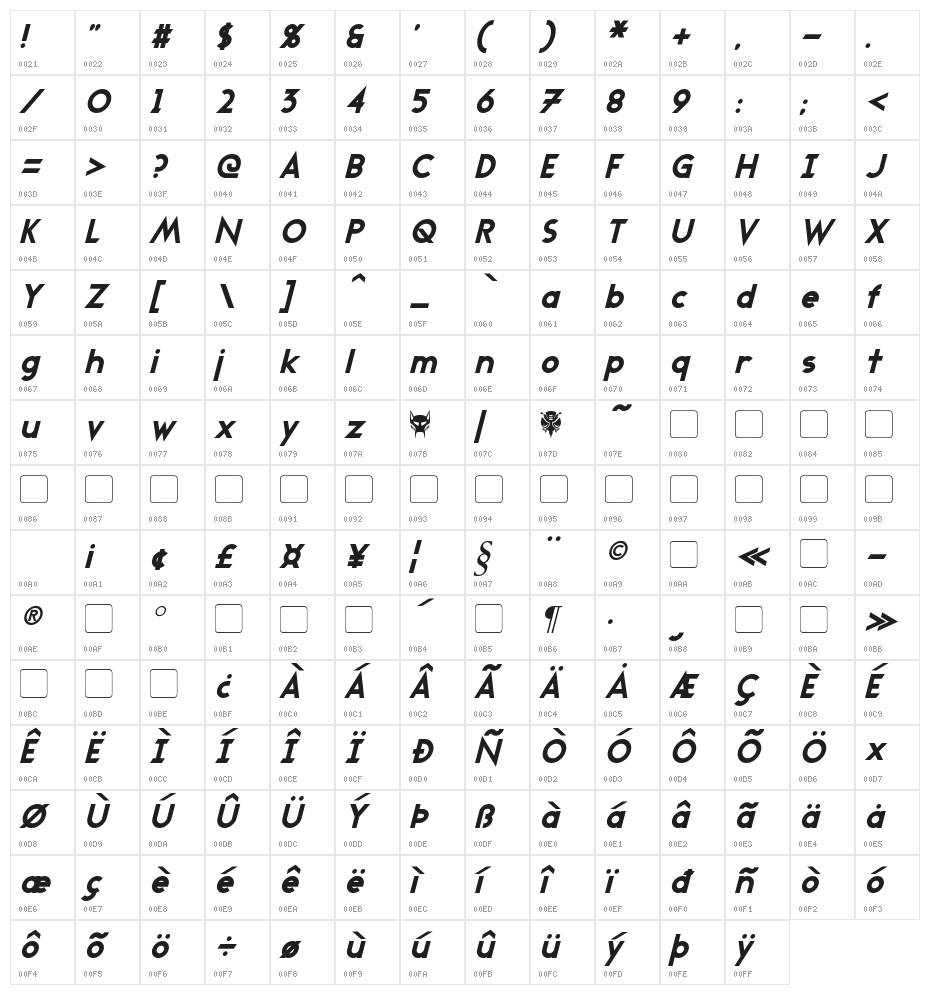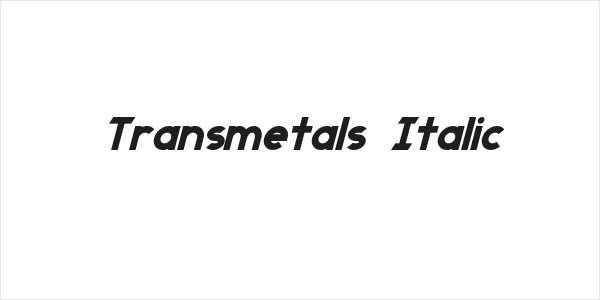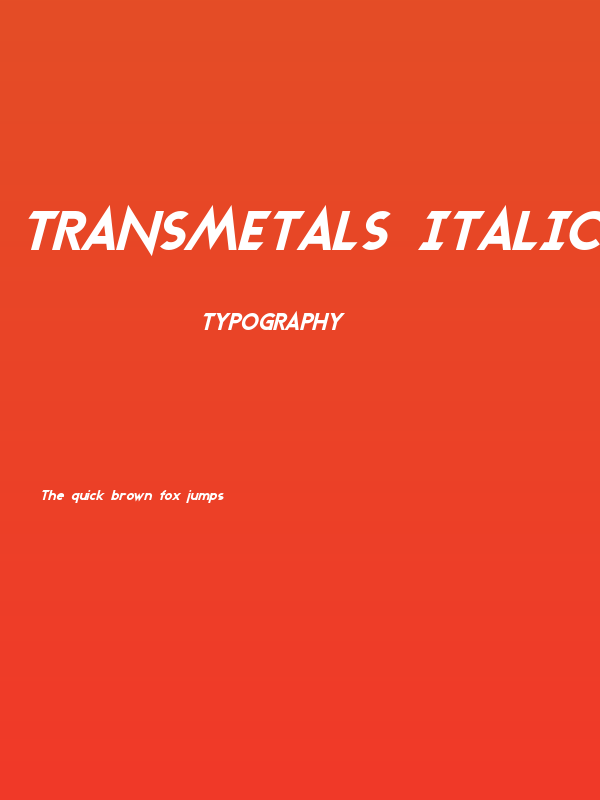
Transmetals Italic Font
Transmetals Italic Description
This font features a dynamic and modern italic style, characterized by its forward-leaning posture and smooth curves. The uppercase letters are bold and assertive, while the lowercase letters maintain a consistent flow, enhancing readability. The numerals are well-proportioned, aligning seamlessly with the overall design. Special characters are crafted with precision, adding versatility to the font. The stroke contrast is medium, providing a balanced visual weight that is neither too heavy nor too light. This font exudes a contemporary vibe, making it suitable for various design applications.
| Proposed Projects | This font is perfect for branding projects, advertising campaigns, and modern web design. Its sleek appearance makes it suitable for headlines, posters, and digital media. |